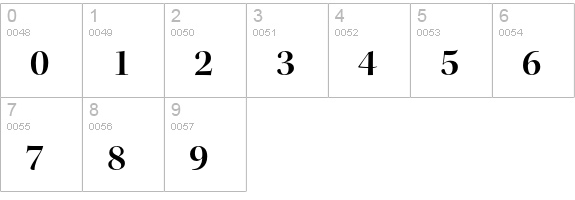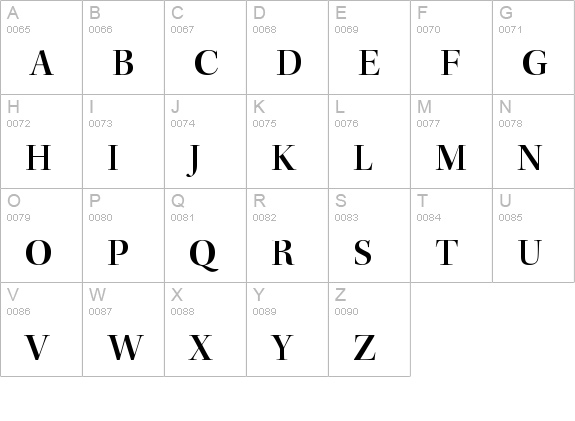
Kepler Std Semibold Display Font Details
Kepler Std Semibold Display is a sub-bold, structured variant in the Kepler typeface family \xE2\x80\x94 well suited to sub-headlines and emphasised passages.
Kepler Std Semibold Display font is a stunningly bold and versatile typeface that commands attention with its strong presence. This font effortlessly combines elegance and impact, making it perfect for headlines, titles, and attention-grabbing designs. With its semibold weight, Kepler Std Semibold Display font strikes the ideal balance between boldness and readability, ensuring that your message is easily conveyed to your audience. Its clean and streamlined letterforms exude professionalism and sophistication, while its slightly condensed proportions add a touch of modernity. The careful attention to detail in Kepler Std Semibold Display font is evident in its precise curves and sharp angles, resulting in a visually pleasing and harmonious design. Every character is meticulously crafted, ensuring legibility even at smaller sizes. One of the greatest advantages of Kepler Std Semibold Display font is that it is freely available to download at FontsMarket.com. This means that you can enhance your creative projects with this exceptional font without any cost. Whether you are working on an advertising campaign, a logo design, or a website, Kepler Std Semibold Display font will elevate your work and leave a lasting impression. In conclusion, Kepler Std Semibold Display font is a powerful and versatile typeface that combines elegance and impact. Its semibold weight and meticulous design make it perfect for headlines and titles, while its freely available download at FontsMarket.com makes it accessible to all. Add a touch of sophistication to your designs with Kepler Std Semibold Display font and captivate your audience with its bold presence.